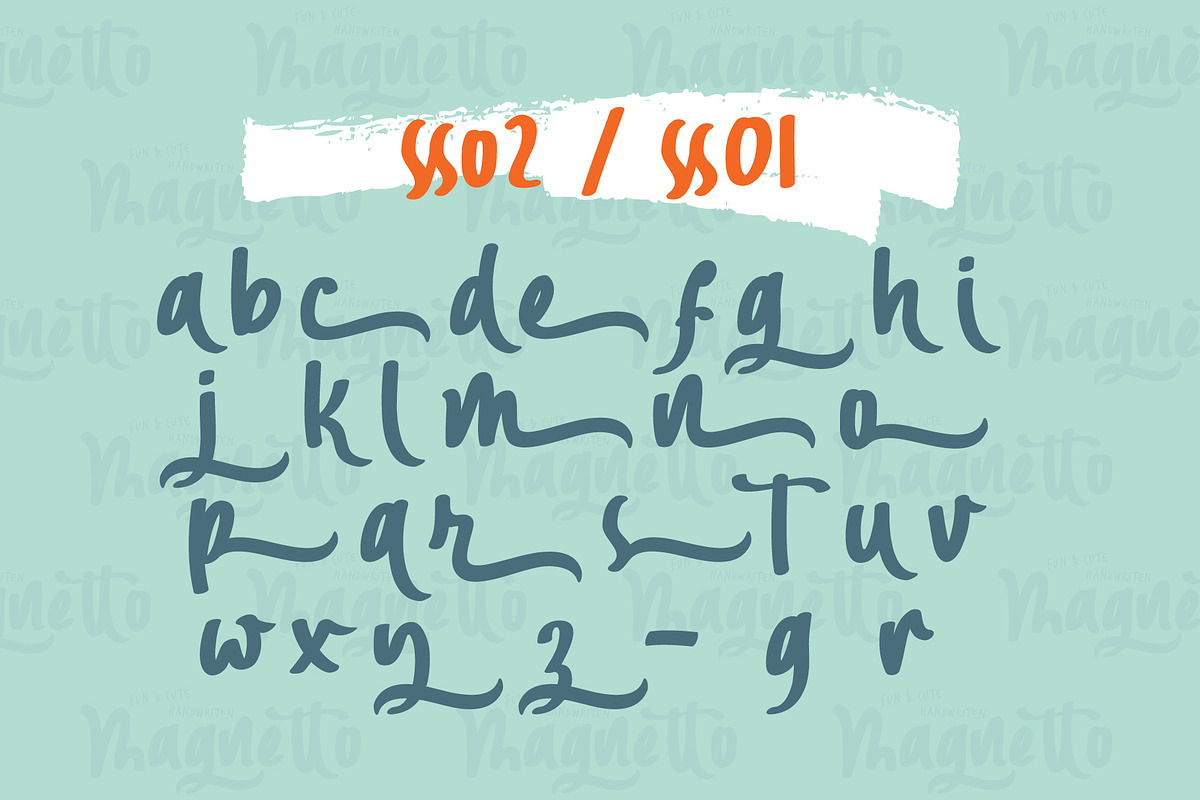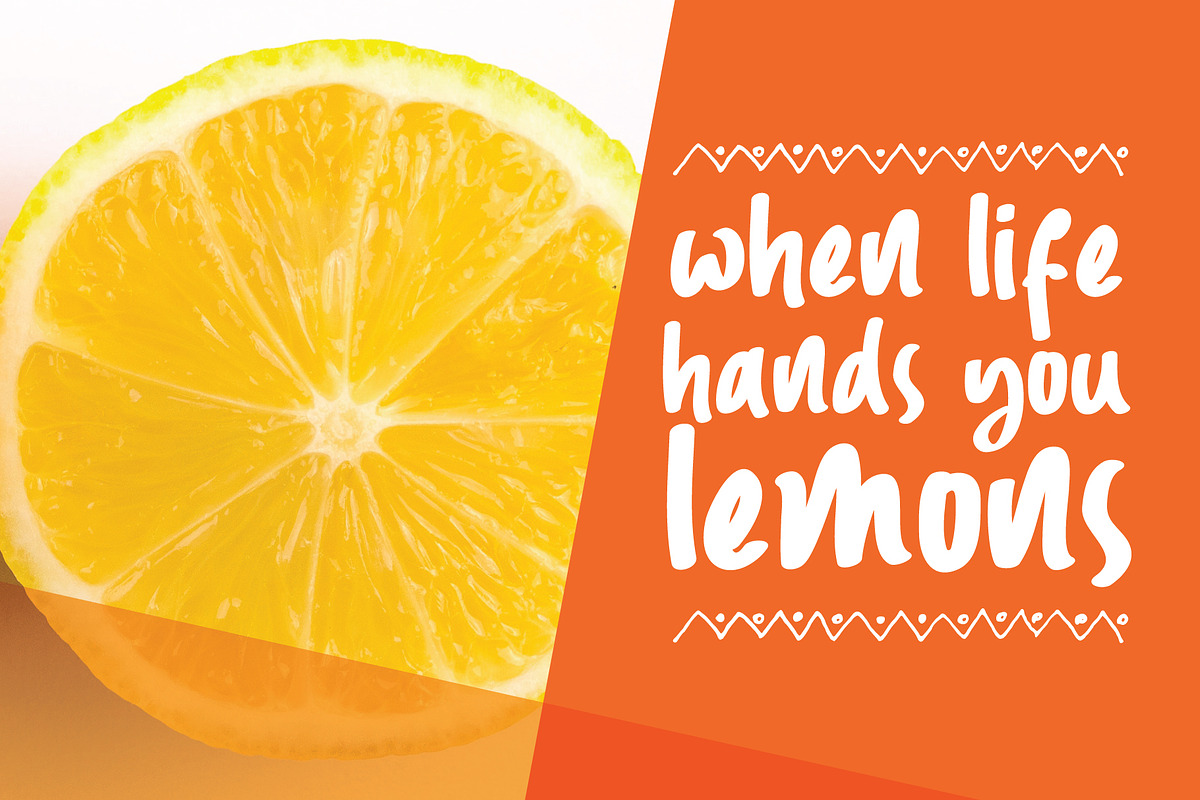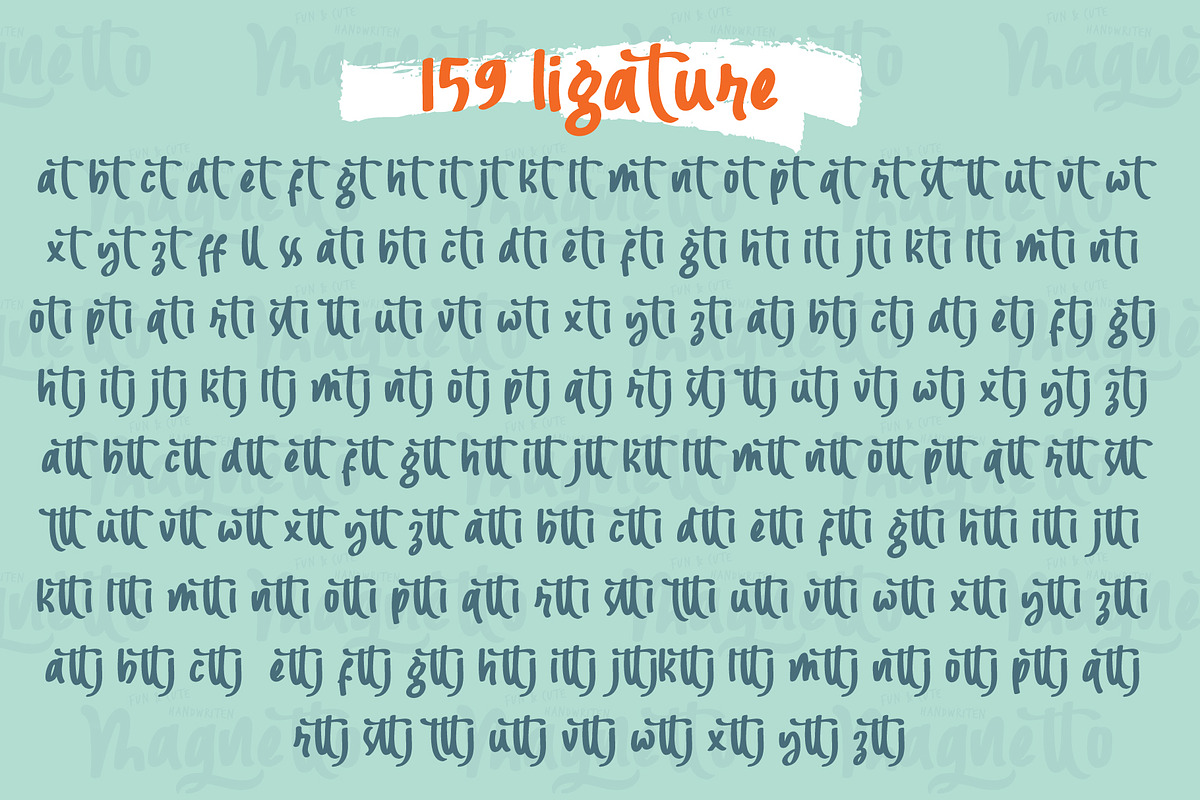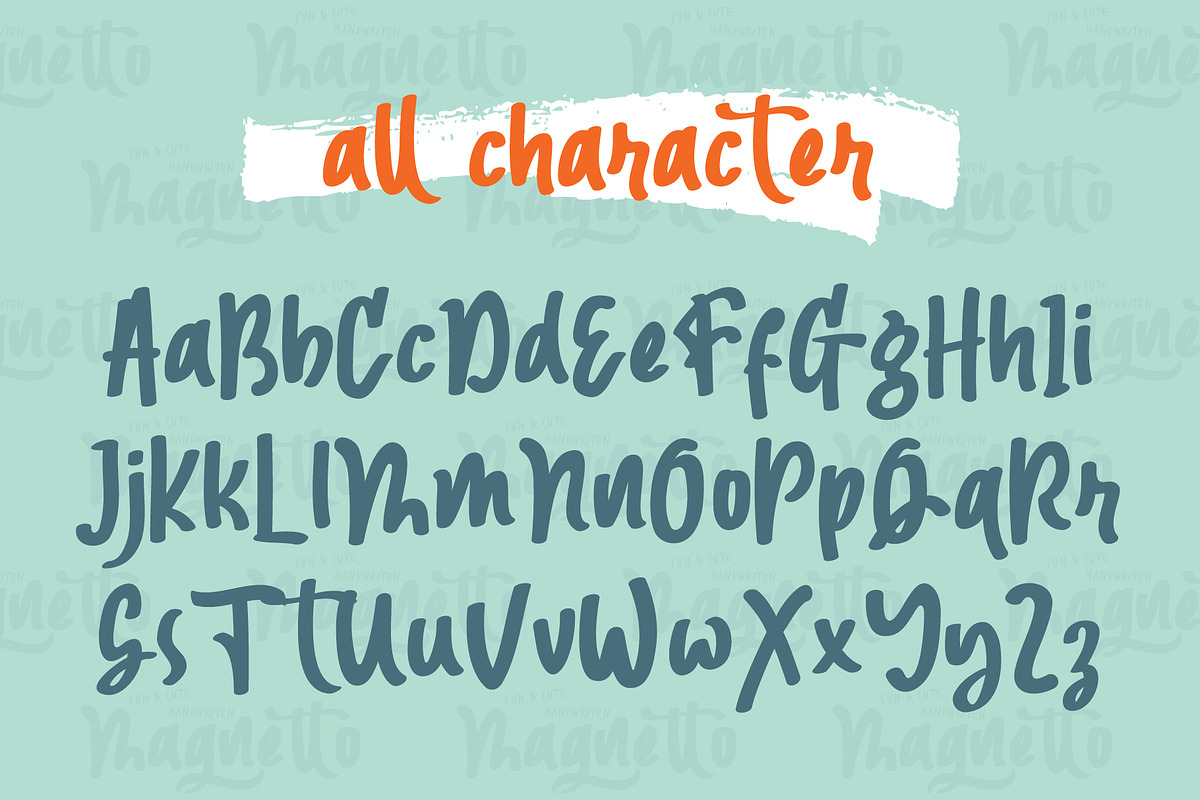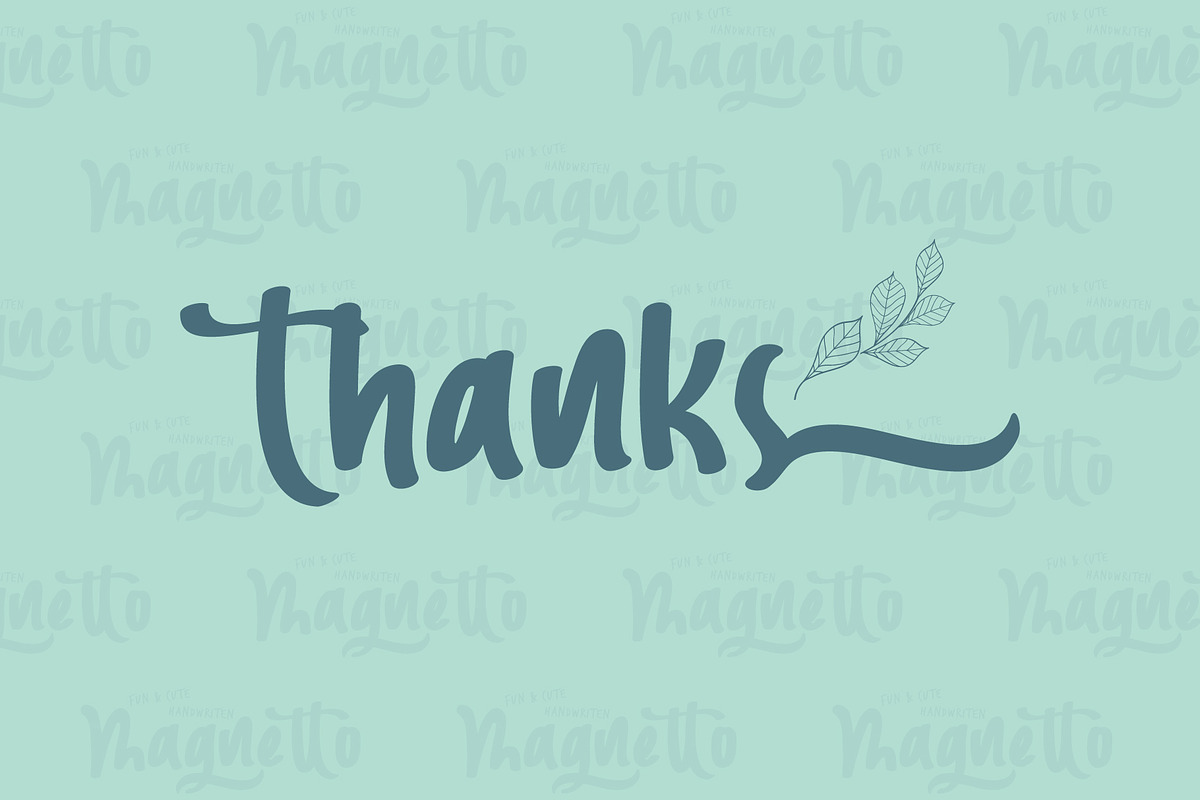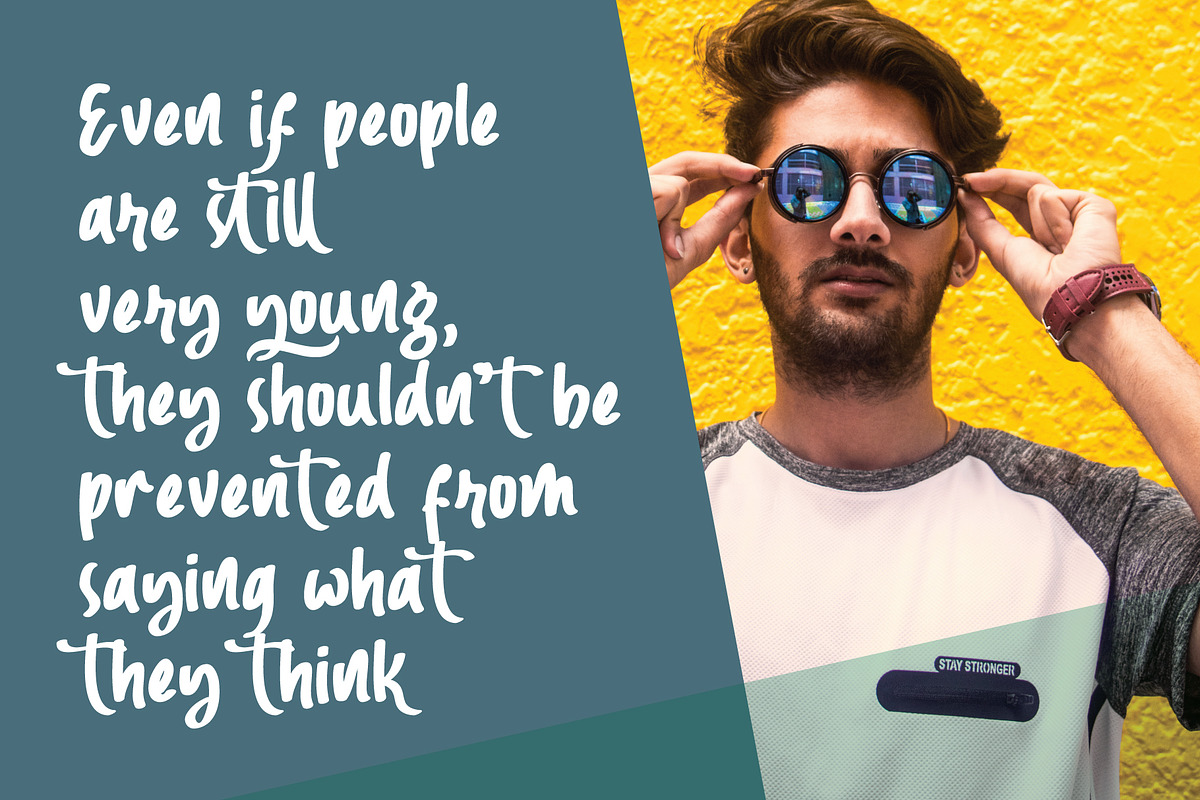
Magnetto Font
Magnetto Font is fun and cute handwritten. Its characters have been drawn by hand to give them a warm and authentic look. Magnetto Font is perfect for comic text, baby products, children's fashion, baby store logo and creative design other children.
Magnetto Font Features :
Accents (Multilingual characters)
Magnetto Font by Atj.std fits naturally into Branding, posters, packaging, typography.